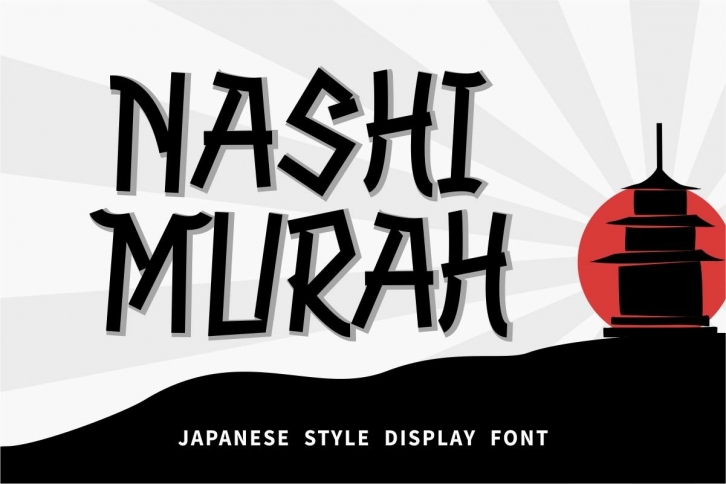
NASHI MURAH is a trendy and unique font with an authentic style. It was designed by GFR creative and it's a great choice for creative people who need such a font. It was released on May 18, 2021 and the file size is 14.76 MB. NASHI MURAH will add an organic vibe to any design idea!